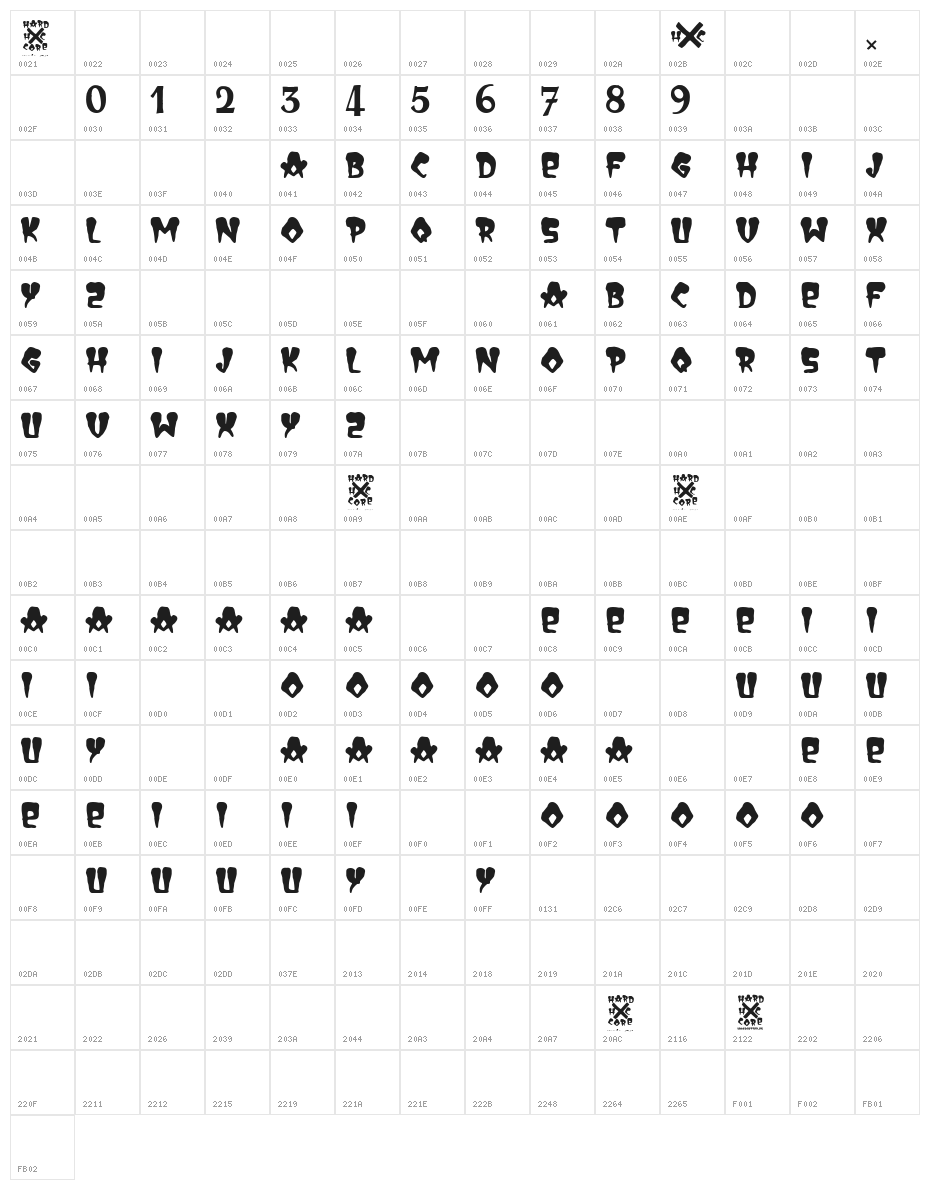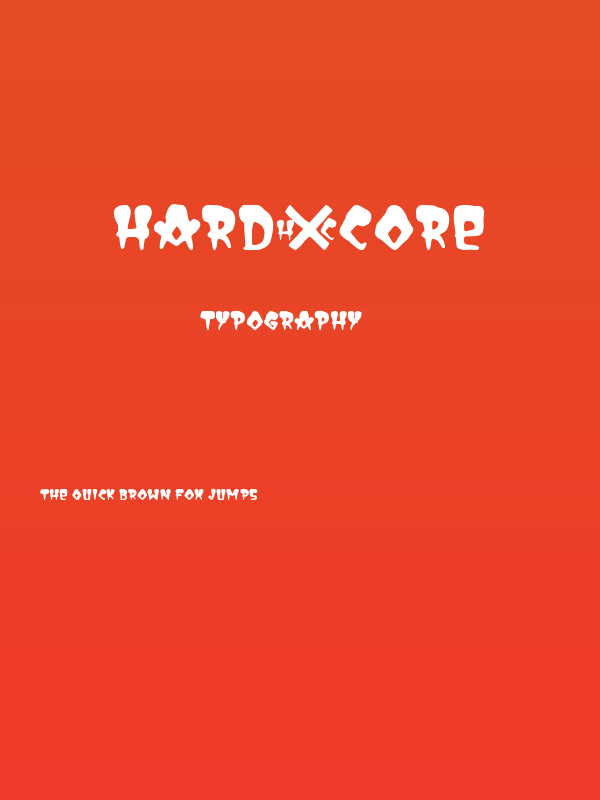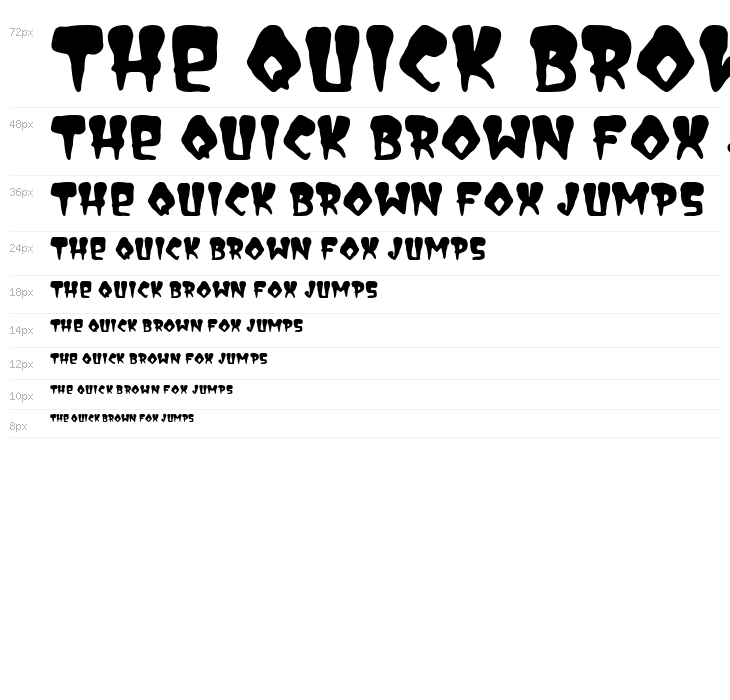
Hard+Core Font
Hard+Core Description
This font features a bold, edgy design with a distinctly rugged appearance. The characters are thick and have a slightly irregular, hand-drawn quality, giving them a raw and dynamic feel. The uppercase letters are particularly striking, with exaggerated serifs and a heavy weight that commands attention. The lowercase letters maintain the same boldness, ensuring consistency across the typeface. Numbers are equally robust, with a playful yet strong presence. This font is ideal for projects that require a bold statement, such as music album covers, posters, or branding for edgy products. Its unique style makes it stand out, while its legibility ensures it remains functional.
| Proposed Projects | Ideal for music album covers, posters, edgy branding, and bold statements. |